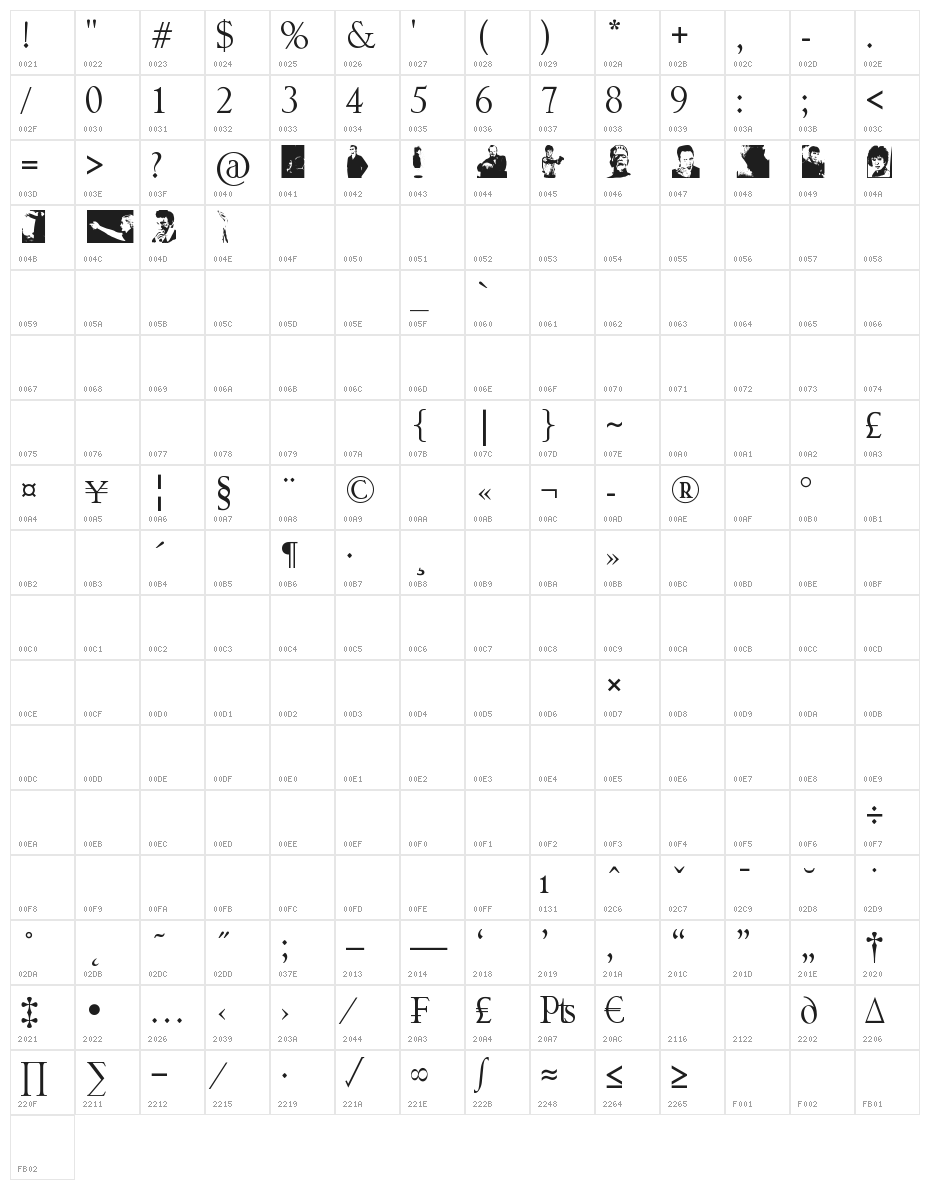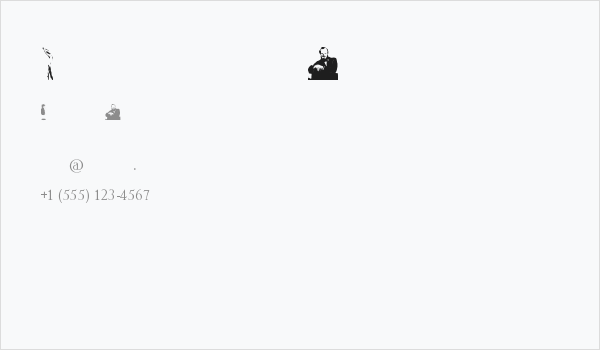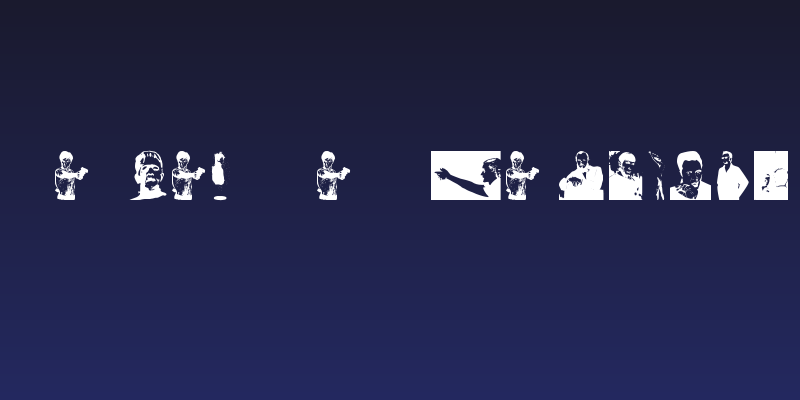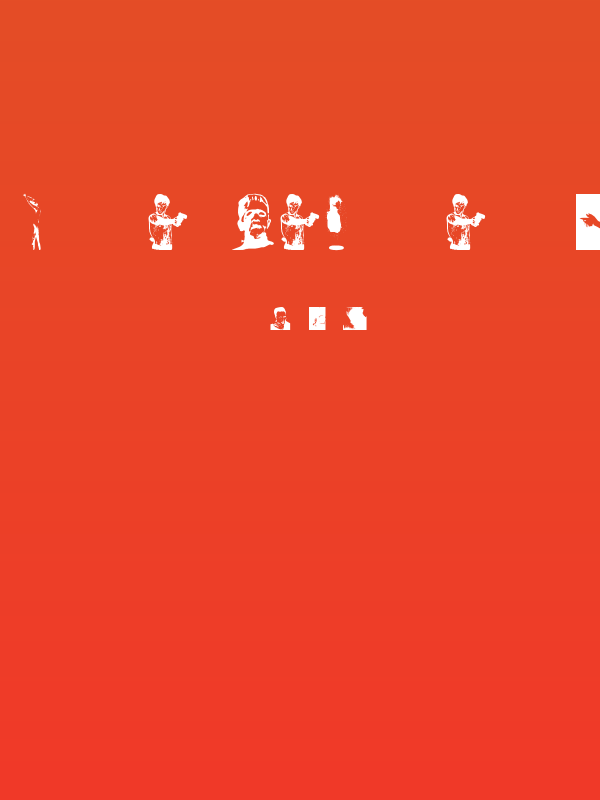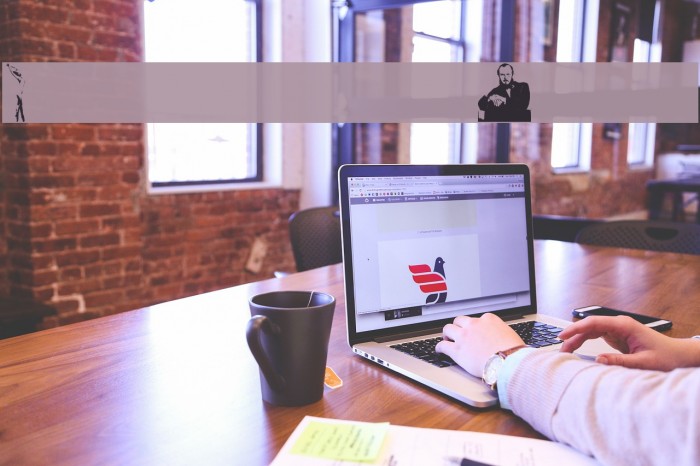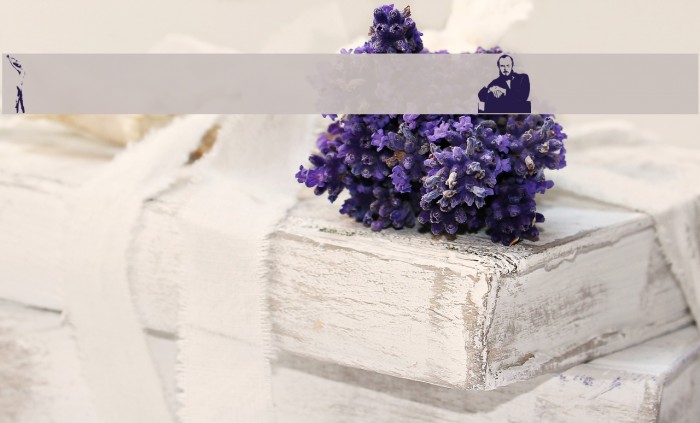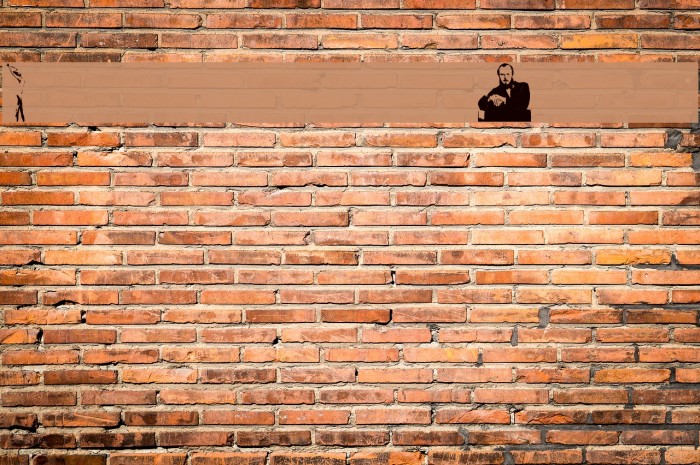
No Perfect People Dingbats Font
No Perfect People Dingbats Description
This font combines a series of iconic silhouettes with classic serif numerals and punctuation. The silhouettes depict various figures in a bold, graphic style, creating a striking visual impact. The numerals and punctuation are designed with elegant serif details, offering a contrast to the boldness of the silhouettes. This combination creates a unique and artistic font that can be used to add character and personality to any design project. The serif elements are well-defined, with moderate contrast in stroke thickness, providing a touch of sophistication.
| Overall Style | Artistic and Bold |
| Use Case | Logos, Posters, Creative Displays |
| Proposed Projects | Ideal for creative projects, posters, album covers, and artistic designs. |